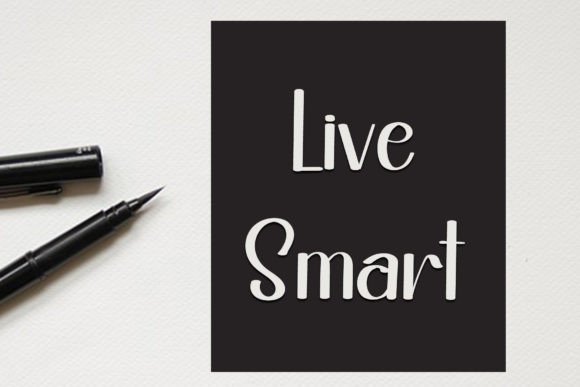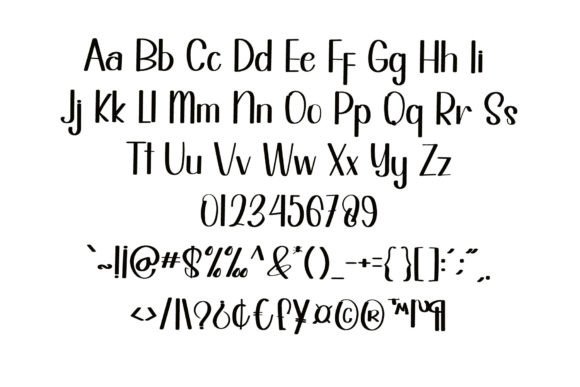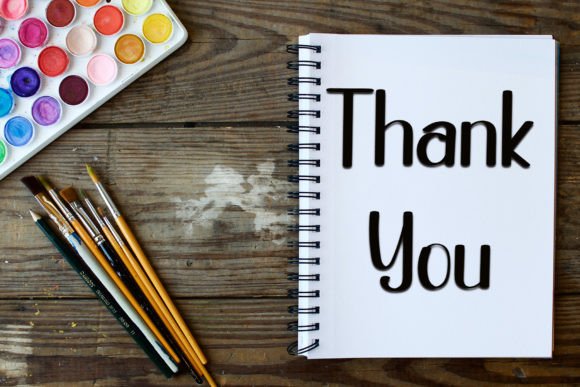
Introduction to Simple Batter Font
Have you ever been working on a creative project and suddenly found the perfect font to bring it all together? That’s exactly what happened to me when I discovered the Simple Batter Font. Its elegant touch and timeless style instantly captured my attention, and I knew I had to share it with fellow designers.
The Simple Batter Font is more than just a design resource – it’s a game-changer for any project that requires a touch of sophistication. With its beautifully handwritten script, it’s perfect for creating high-quality designs that stand out from the crowd. Whether you’re working on a branding project or a personal design, this font is sure to impress.
Key Features of Simple Batter Font
- Unique and creative design ideal for various creative projects
- Designed as a simple yet effective font for use in various design resources
- Perfect for designers looking for a clean and modern font for their projects
Honest Review: Simple Batter Font
I recently stumbled upon the Simple Batter Font, a design resource that caught my attention with its clean and minimalist aesthetic. As a designer, I was excited to dive deeper and see how it would work for my creative project.
What works well: ✨ The font’s transparent background makes it easy to work with, and the high-quality design ensures that my text looks crisp and clear. The Simple Batter Font is perfect for creating a clean and modern look for my design project.
However, I did encounter some limitations: ⚠️ The font’s limited character set means that I had to get creative with my text arrangement to ensure everything fit within the design. Additionally, the font doesn’t come with a comprehensive documentation, which made it a bit harder to troubleshoot any issues.
Overall, I’d say the Simple Batter Font is a solid choice for designers looking for a clean and minimalist font. While it may have some limitations, its high-quality design and transparent background make it a valuable addition to my design resource toolkit.
- Perfect for modern and minimalist designs
- High-quality design for crisp and clear text
- Transparent background for easy design work
The Simple Batter Font is a free, high-quality design resource perfect for your next creative project. With its transparent background and clean design, it’s ideal for adding a touch of elegance to your work.
The Simple Batter Font is ideal for a variety of use cases, including:
- Designing social media graphics and presentations
- Creating reports and documents
- Adding a touch of elegance to your website or blog